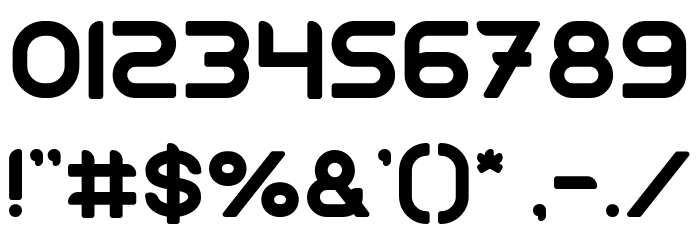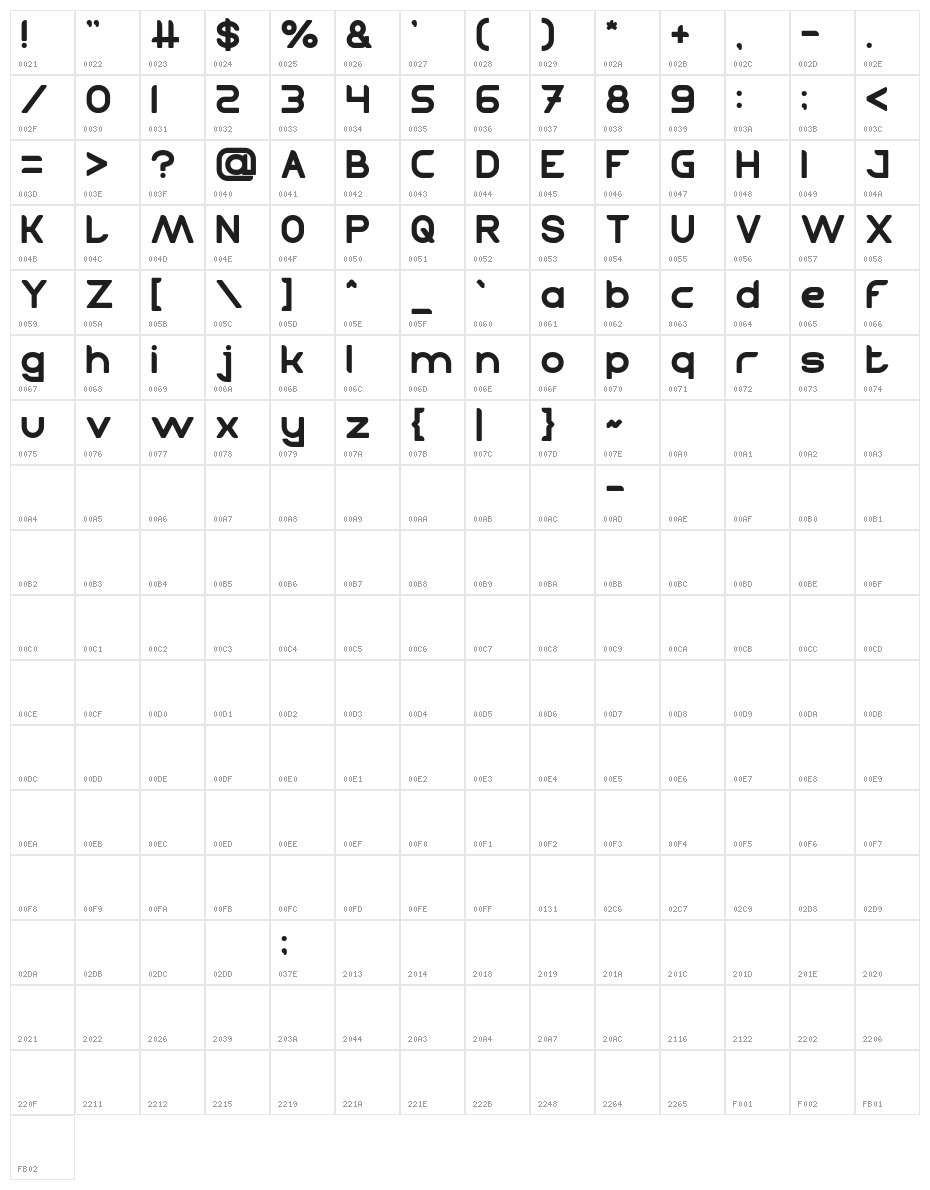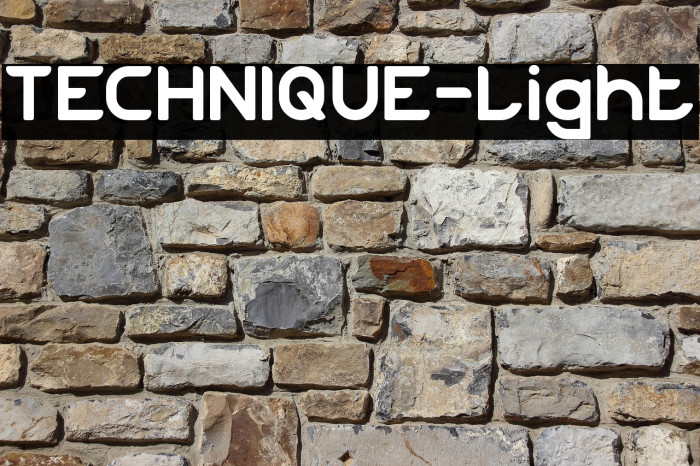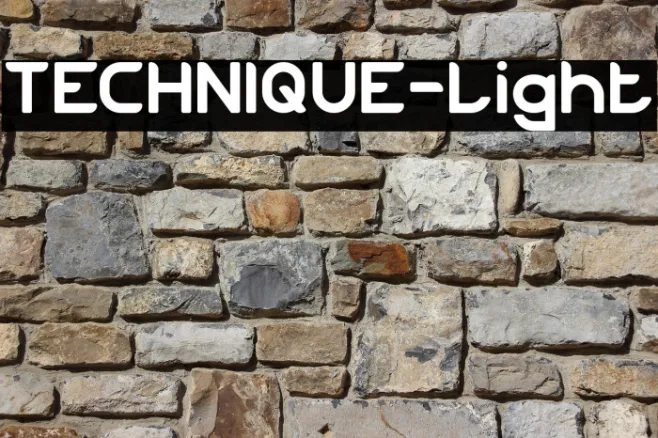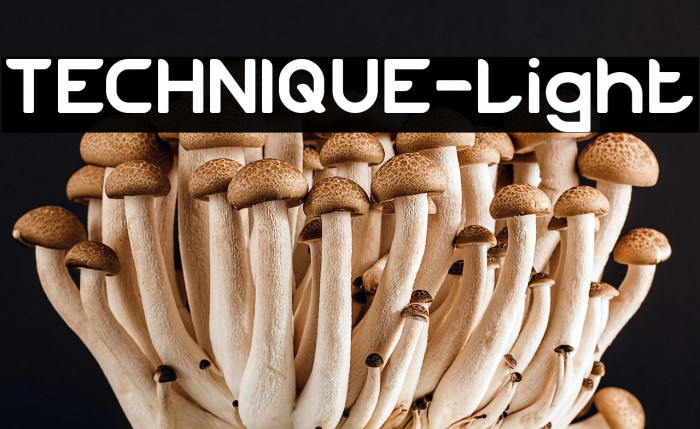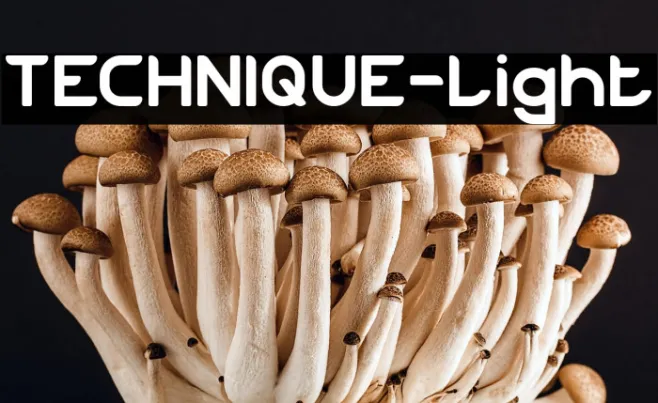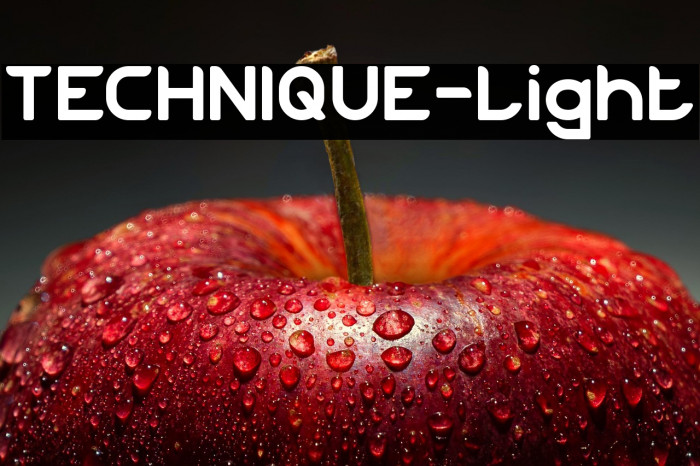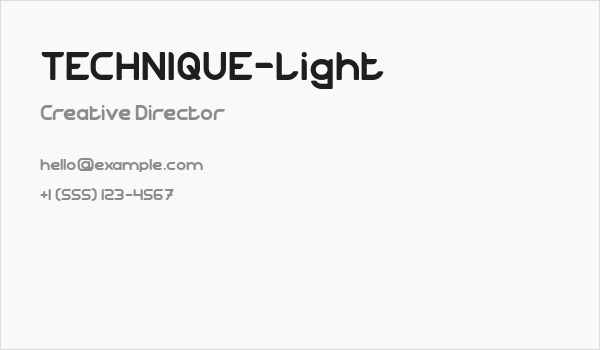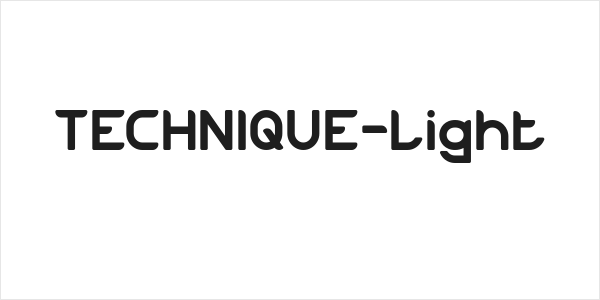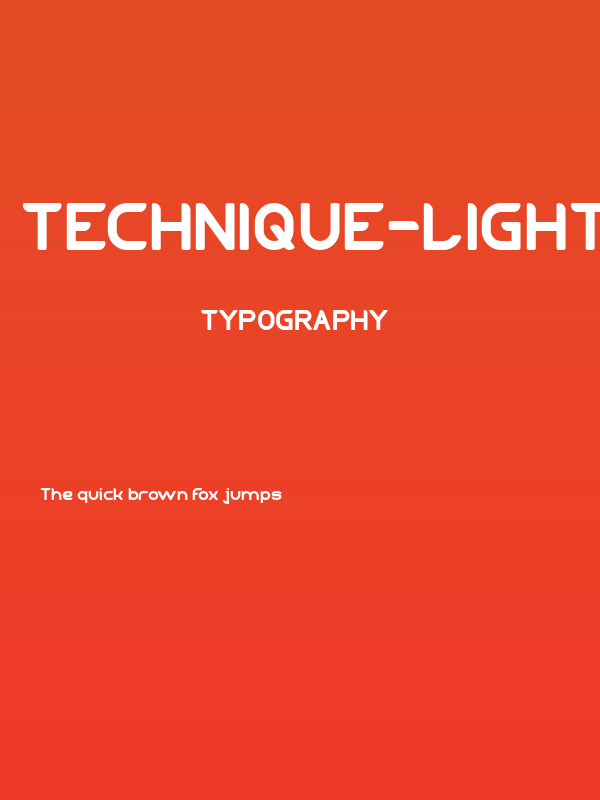
TECHNIQUE-Light Font
TECHNIQUE-Light Description
This font exhibits a modern and sleek design with rounded edges and a geometric structure. The characters are uniformly constructed, providing a clean and cohesive appearance. The uppercase letters maintain a consistent height, while the lowercase letters are slightly shorter, adding a subtle contrast. The numerals are bold and easily distinguishable, complementing the overall style. Special characters are designed with the same rounded and geometric approach, ensuring uniformity across all symbols. The font's smooth curves and balanced proportions make it versatile for various design applications.
| Use Case | Headlines, Logos, Digital Interfaces |
| Proposed Projects | Ideal for tech branding, modern web design, digital interfaces, and futuristic posters. |